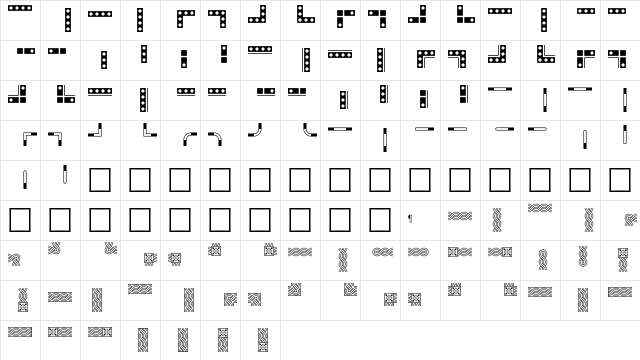
ByDesign Borders2 Regular Free Font
ByDesign Borders2 Regular
Design Context for ByDesign Borders2
ByDesign Borders2 is a composed and adaptable typeface that performs quietly and consistently across a wide range of design contexts.